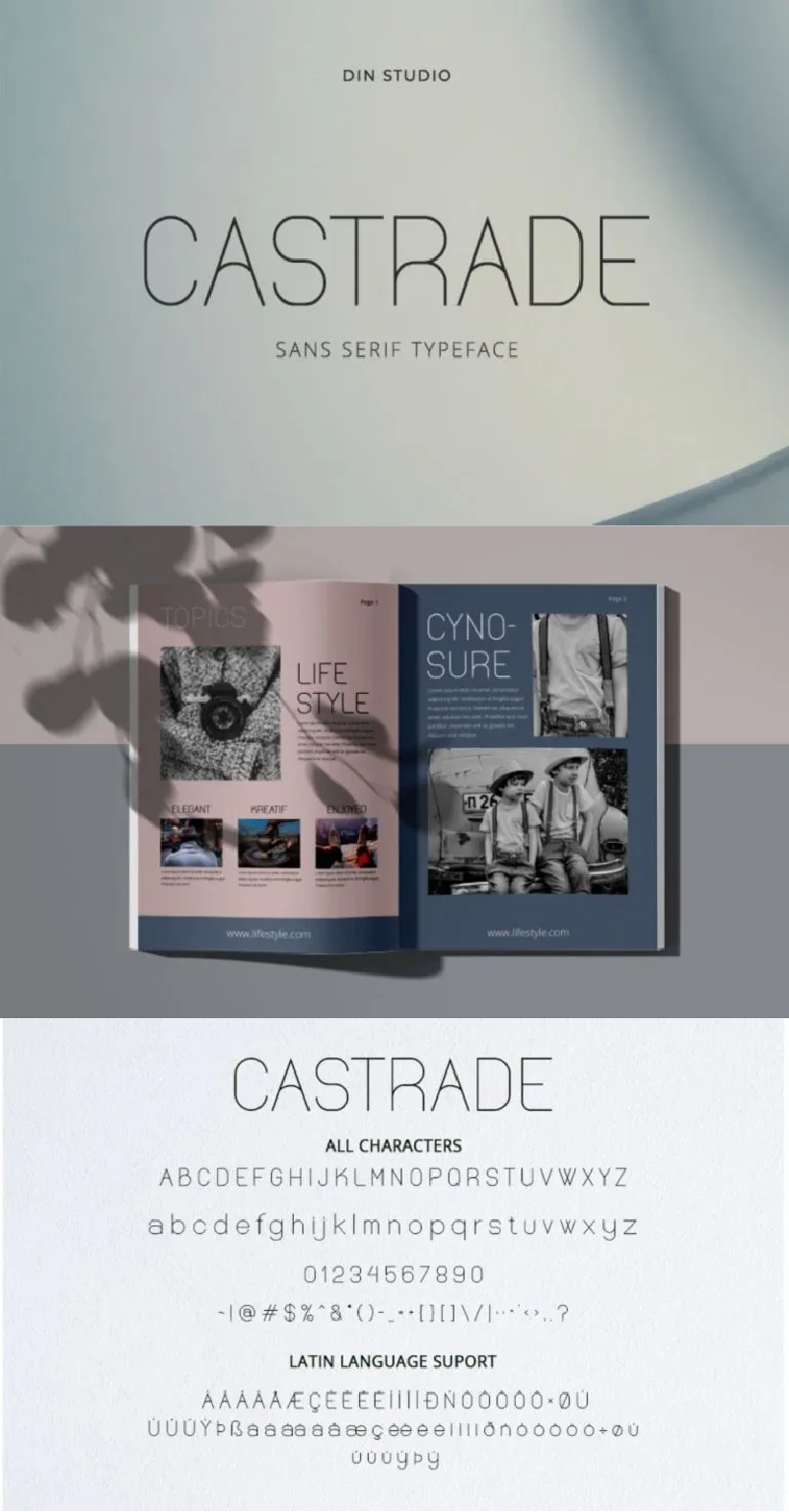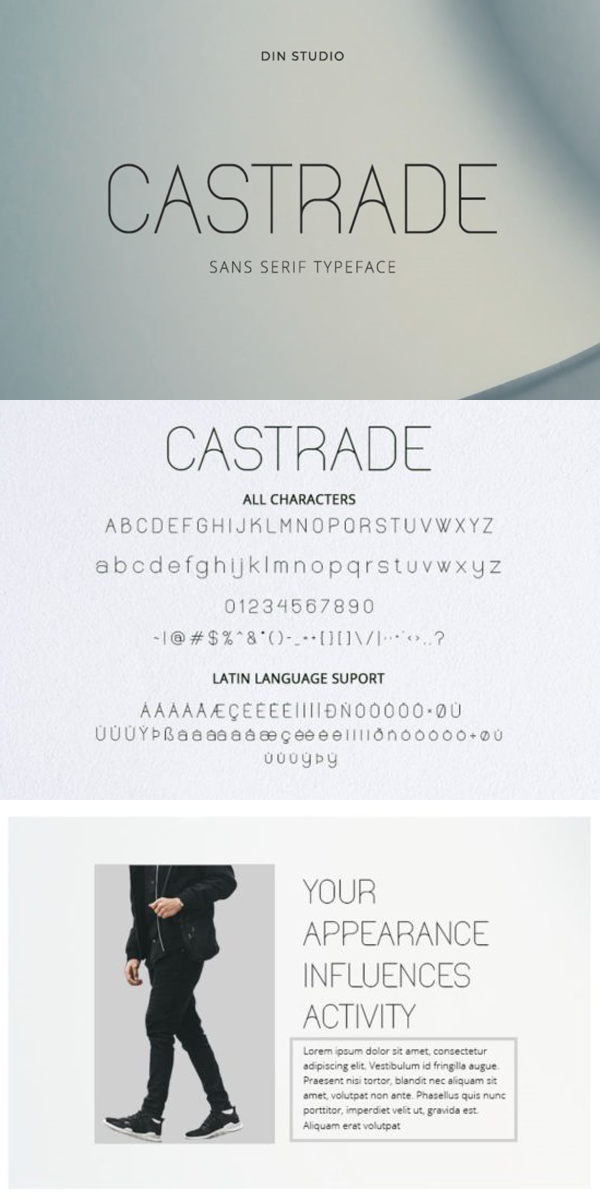
CASTRADE Font
About CASTRADE
Castrade is a modern display sans font made for any professional project brandings. Every letter has a unique and beautiful touch. It is suitable for social media campaigns, ads, brandings, merchandise, logotypes, cards, and more! See the previews above to get some inspiration on how you can use them. Enjoy the font!